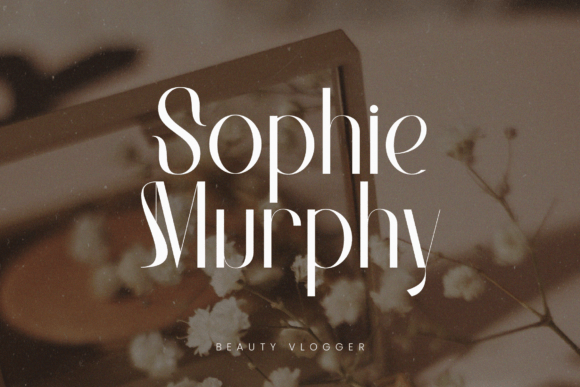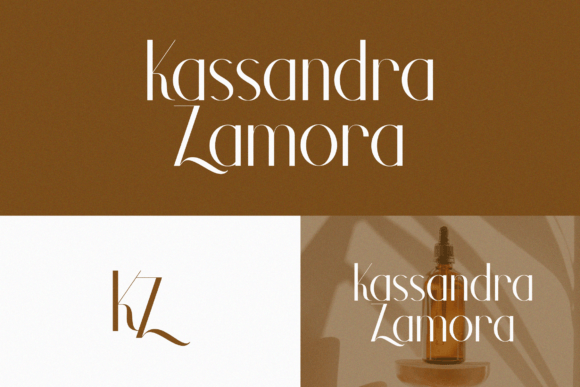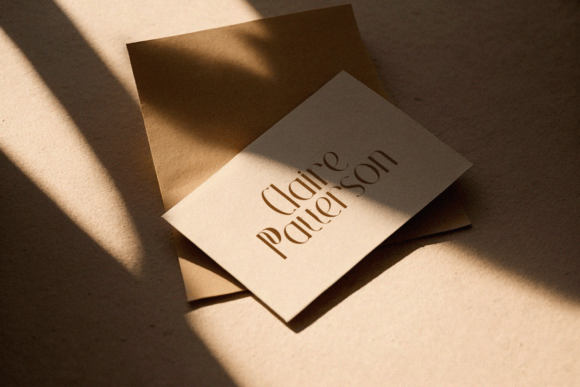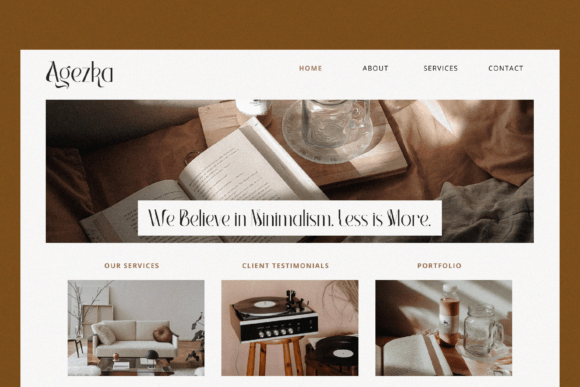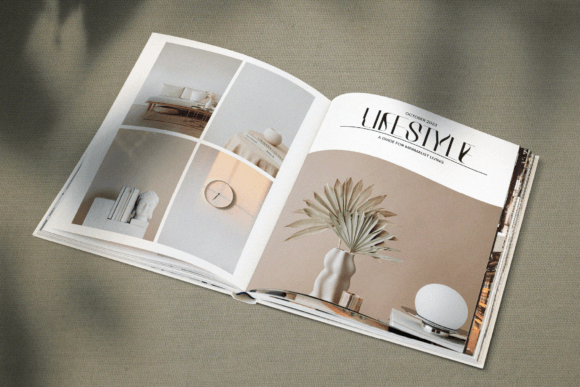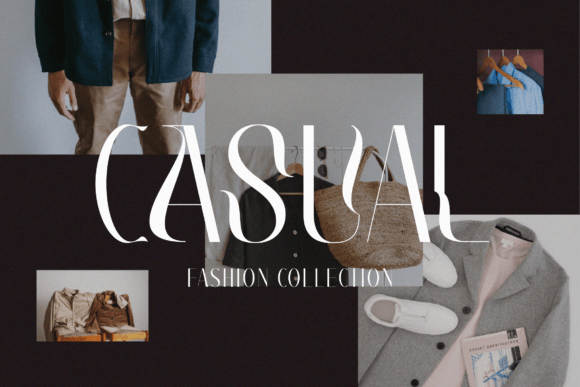
Introducing Agezka: The Epitome of Elegance and Versatility in Typography
In the realm of design, the right typography can elevate a project from mundane to extraordinary. For those seeking a font that embodies both sophistication and modern flair, look no further than Agezka, the classy display font that is redefining the landscape of creative design. Agezka is not just a font; it’s an experience, a statement of elegance and poise that brings a touch of class to any project it touches.
The Perfect Blend of Chic Elegance and Contemporary Cool
Agezka strikes the perfect balance between chic elegance and contemporary cool, making it an unparalleled selection for designers and crafters alike. Whether you’re crafting logos, establishing a brand aesthetic, designing invites, creating stationery, fashioning wedding creatives, or sculpting social media posts, Agezka provides the perfect blend of style and versatility. Its unique silhouette is both eye-catching and timeless, ensuring that your designs stand out in a crowded digital landscape.
Unleash Your Creativity with Agezka’s Remarkable Features
At the heart of Agezka’s appeal is its remarkable feature set, designed to cater to a myriad of design needs. This font boasts:
• PUA Encoding: Ensuring full accessibility to all glyphs, giving designers the freedom to explore a wide range of creative possibilities.
• All Caps: Perfect for headings, titles, and any design element where impact and visibility are key.
• Numeric and Punctuation Characters: Providing everything you need to create comprehensive and detailed designs.
• Multilingual Support: Breaking down language barriers and enabling designers to create content for a global audience.
• Alternate Characters: Offering flexibility and variety, allowing designers to experiment with different looks and styles within the same font family.
Versatility Meets Style
Agezka is more than just a font; it’s a tool that bridges the gap between creativity and practicality. Its versatility makes it suitable for a wide array of design applications. Here are just a few ways you can leverage Agezka:
• Logo Design: Create memorable and impactful logos that set your brand apart.
• Branding: Establish a consistent and sophisticated visual identity across all your brand materials.
• Invitations and Stationery: Add a touch of elegance to your paper goods, making them truly special.
• Wedding Design: From wedding invitations to decor and social media announcements, Agezka brings a classy vibe to your wedding creatives.
• Social Media Graphics: Elevate your social media presence with stylish and engaging graphics.
Why Choose Agezka?
In a world where design trends are constantly evolving, Agezka stands out as a timeless choice. Its unique blend of elegance and modernity ensures that your designs are not only current but also enduring. Here are a few reasons why Agezka should be your go-to font:
• Unique Silhouette: Agezka’s distinctive look ensures your designs capture attention and leave a lasting impression.
• Highly Versatile: With its extensive feature set, Agezka adapts to your design needs, whether you’re working on a corporate project or a personal craft.
• Ease of Use: Thanks to PUA encoding and a comprehensive set of characters, working with Agezka is seamless and intuitive.
Agezka is more than just a font; it’s a design companion that brings sophistication, elegance, and versatility to your projects. Whether you’re a professional designer or a crafty DIY enthusiast, Agezka offers the perfect blend of style, functionality, and creativity. Elevate your designs with Agezka, and experience the difference that a truly exceptional font can make.